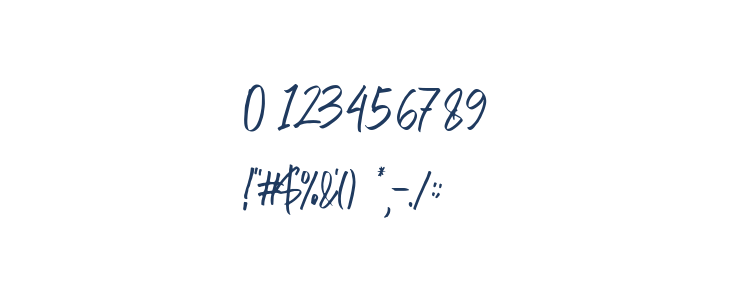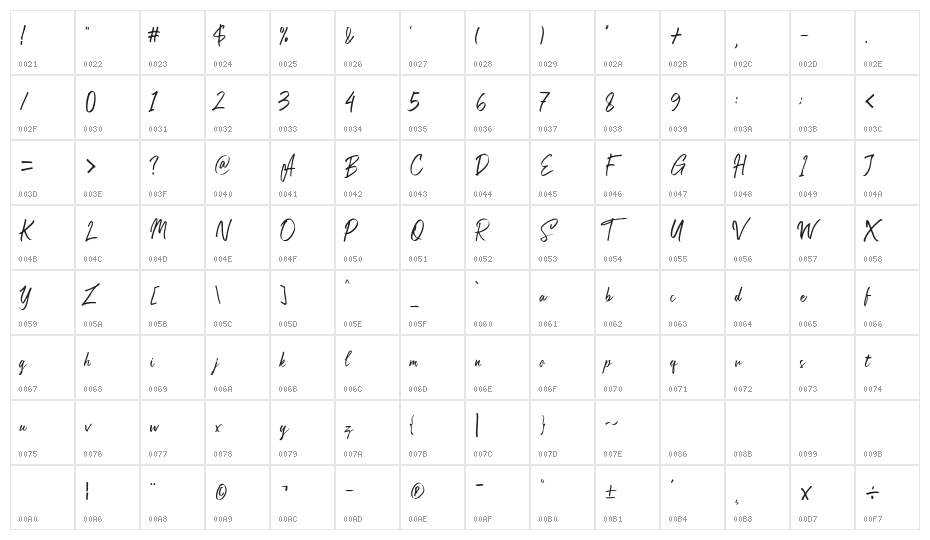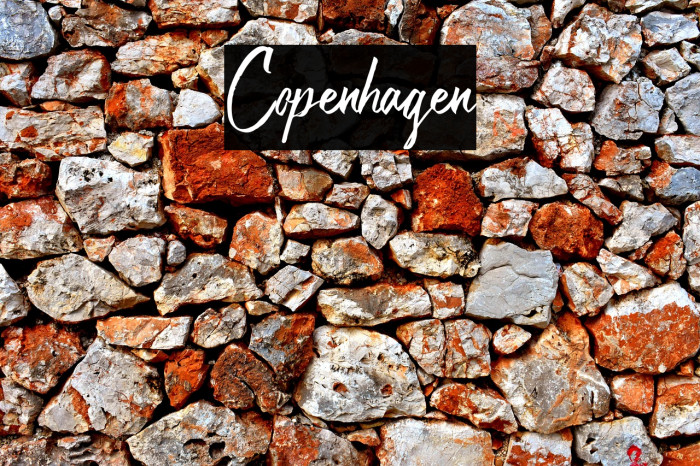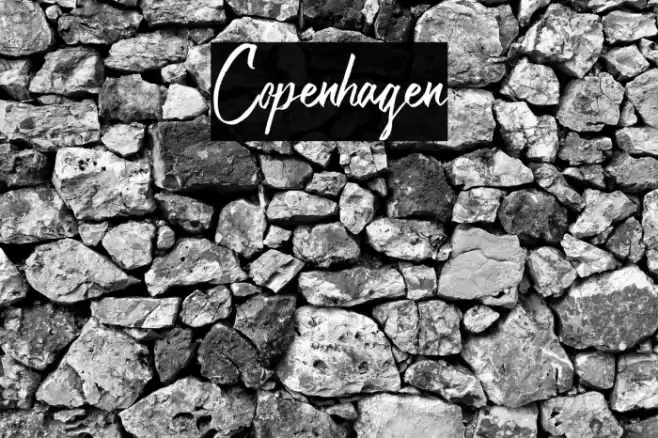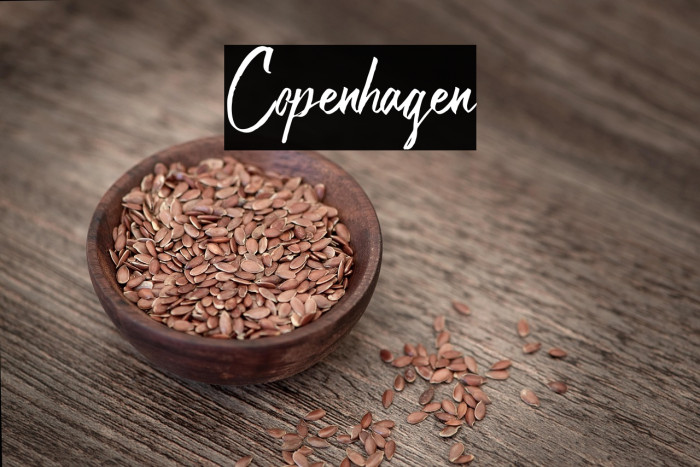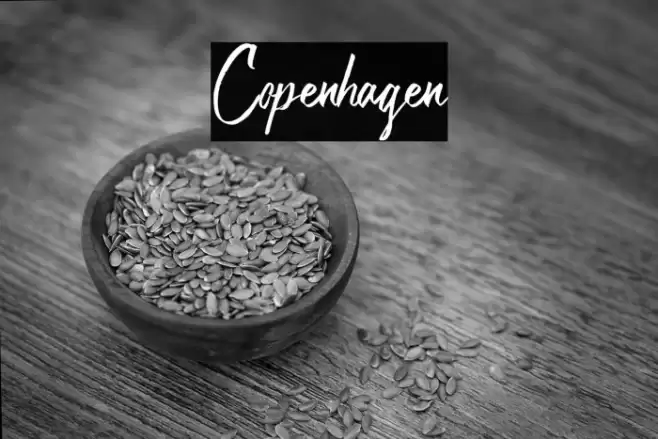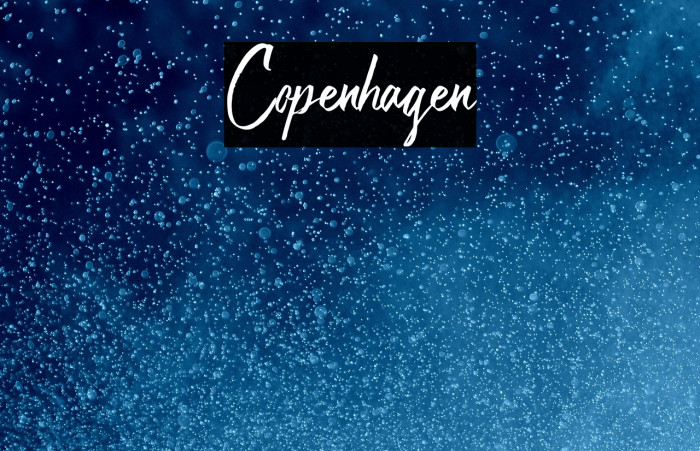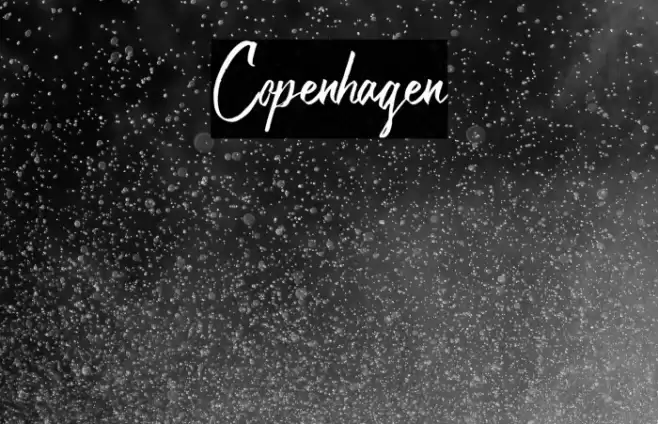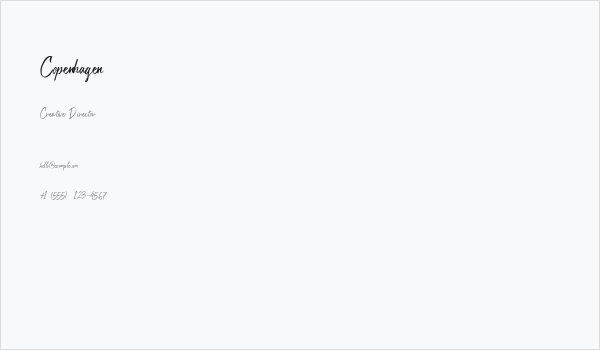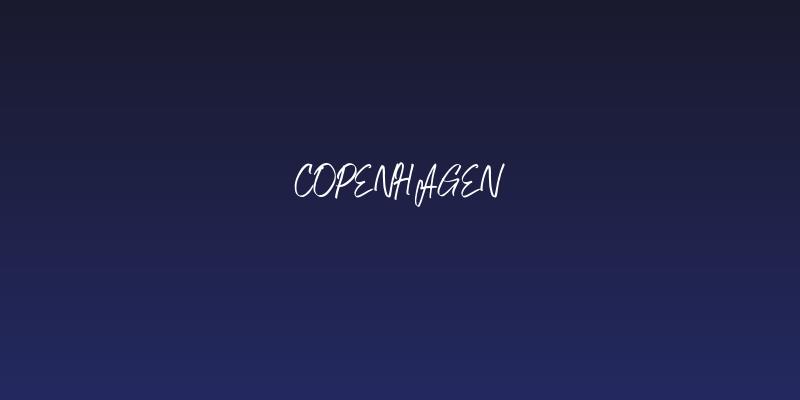
Copenhagen Font
Copenhagen Description
This font features a dynamic and expressive handwritten style, characterized by its fluid and cursive letterforms. The uppercase letters are bold and slightly slanted, giving a sense of motion and energy. The lowercase letters maintain a consistent flow, with some letters extending below the baseline, adding to the casual and artistic feel. Numbers and special characters are crafted with the same attention to detail, ensuring a cohesive look across all elements. The overall appearance is both elegant and informal, making it suitable for creative and personal projects.
| Proposed Projects | Ideal for wedding invitations, greeting cards, personal branding, and artistic projects. |